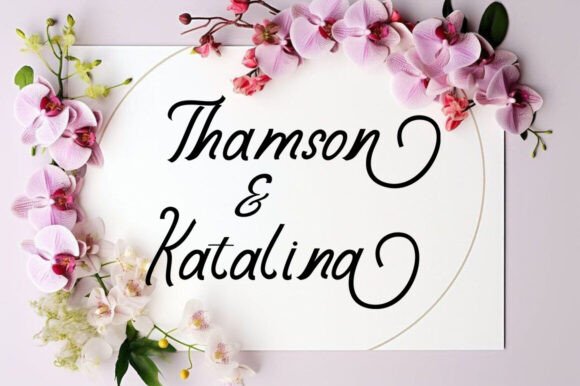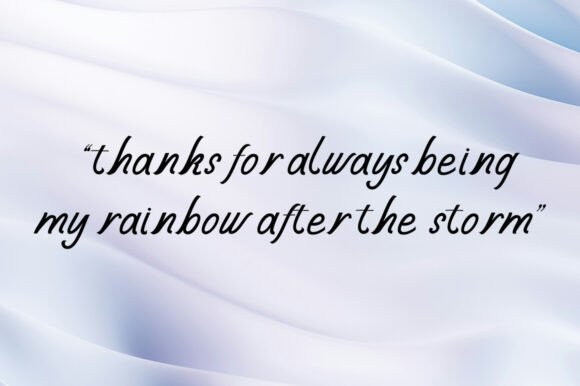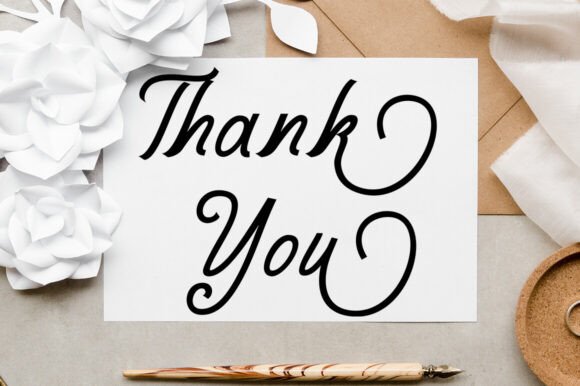
Introduction to Batam Font
Batam is a new modern script calligraphy font with an irregular baseline.
Trendy and feminine style Batam Script looks lovely on wedding invitations, thank you cards, quotes, greeting cards, logos, business cards, and more.